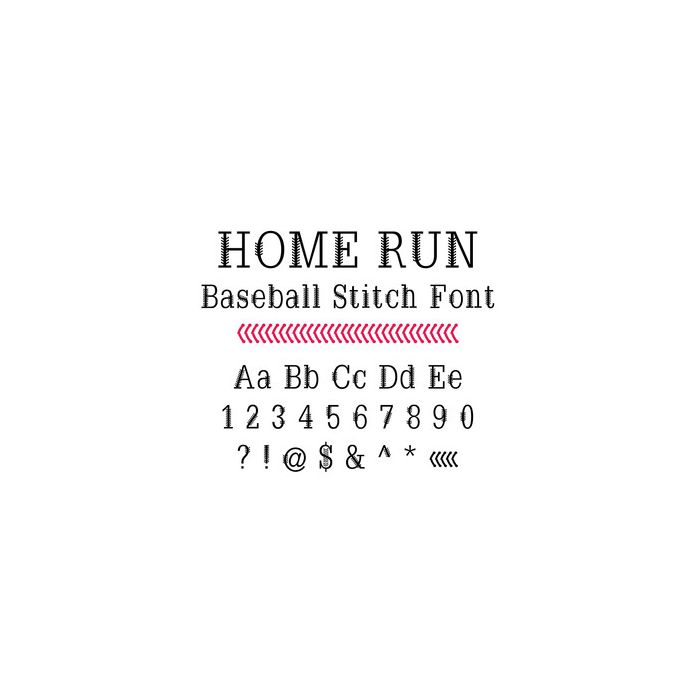
Home Run Baseball Stitch Font. Hand drawn font, including upper and lower case letters, numbers and glyphs. For more design ideas, coordinating designs & products and inspiration, please visit my blog http://www.sarahhurleyblog.com